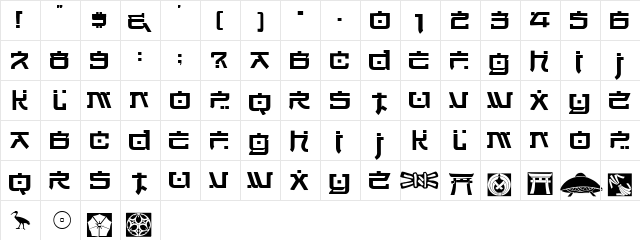
Mitsumai Normal
Design Context for Mitsumai Typeface
Mitsumai is a composed and adaptable typeface that performs quietly and consistently across a wide range of design contexts.